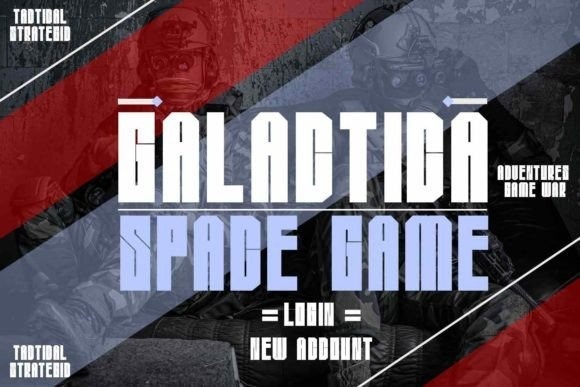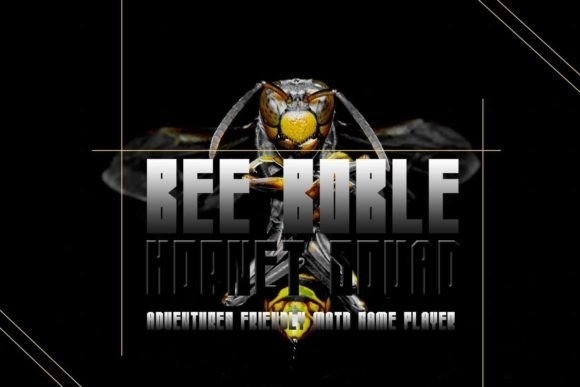
Punch Boxing Font
Punch Boxing is a retro-themed display font with a unique and attractive style that gives an unforgettable impression, You can use this font for many projects ranging from book titles, games, clothing brands, and many more.